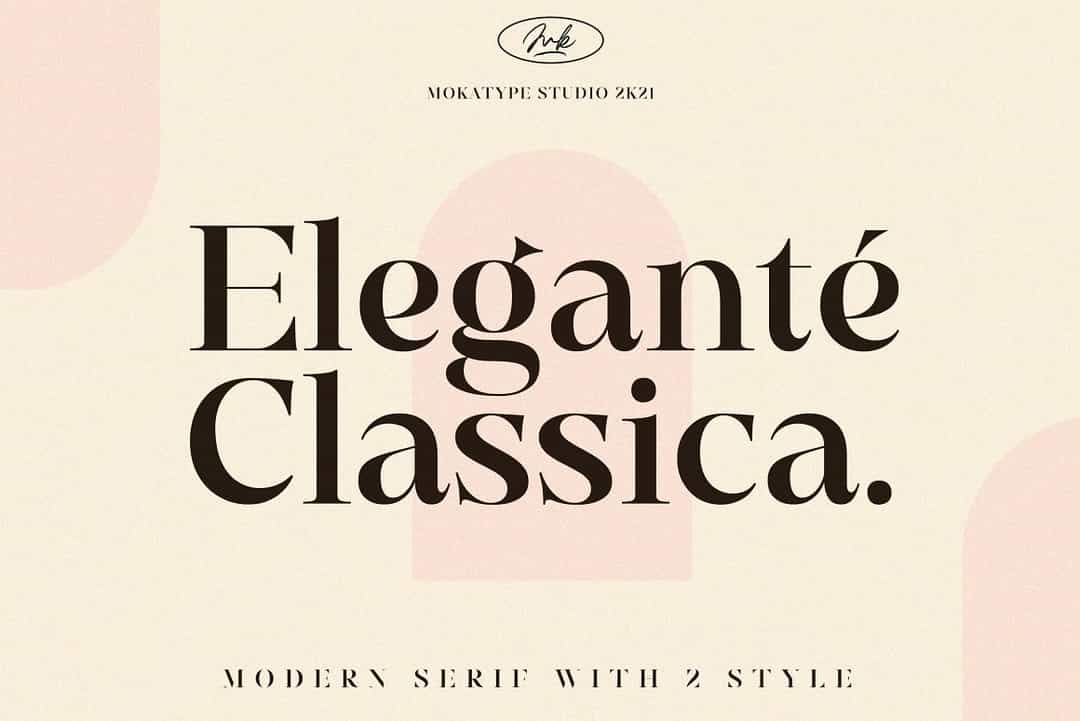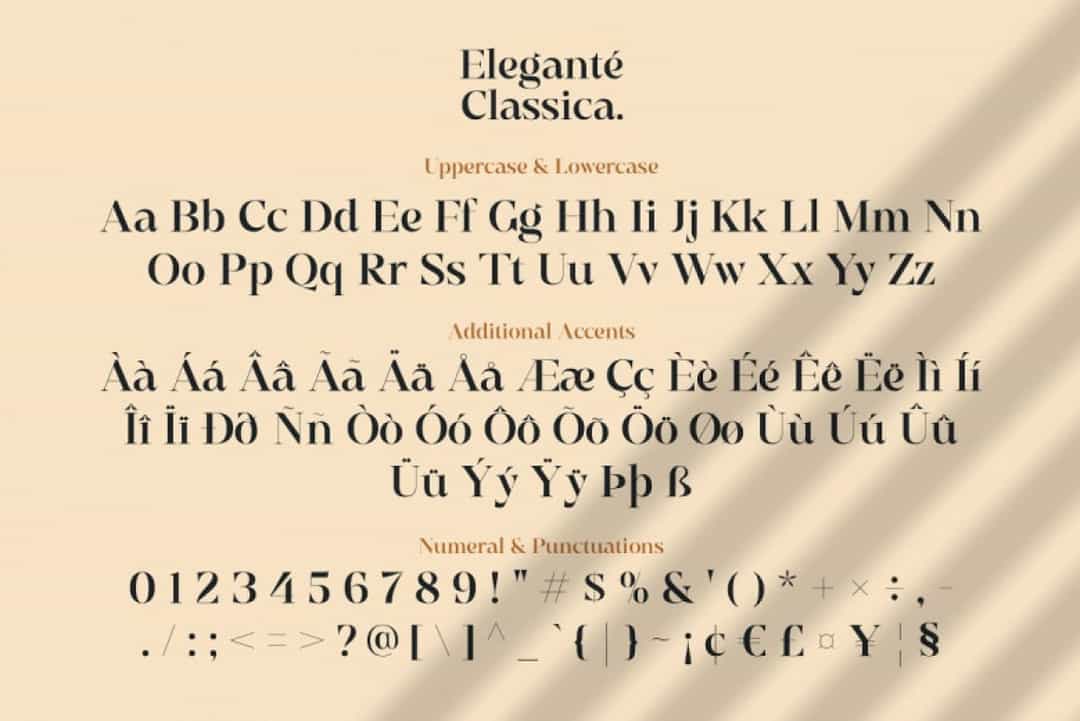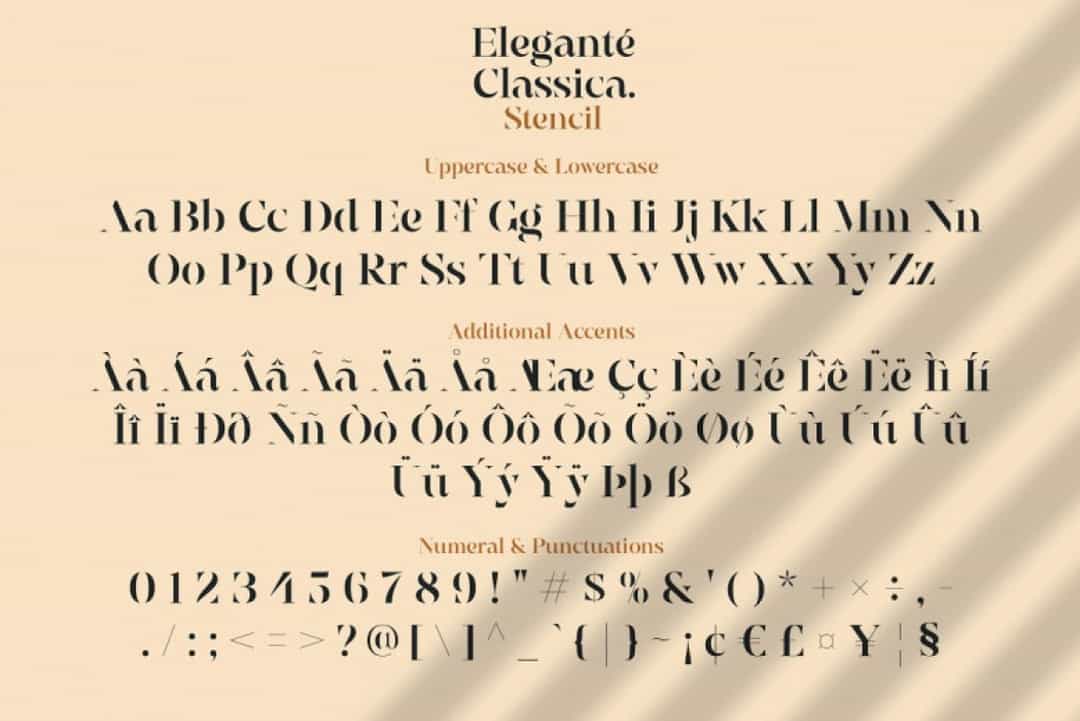
Elegante Classica Luxury Serif Display is an elegant and sophisticated font inspired by minimalist logo design, ideal for designing templates, brochures videos advertisements branding logos. Additionally, this font adds a special touch to wordmarks monograms pull quotes.